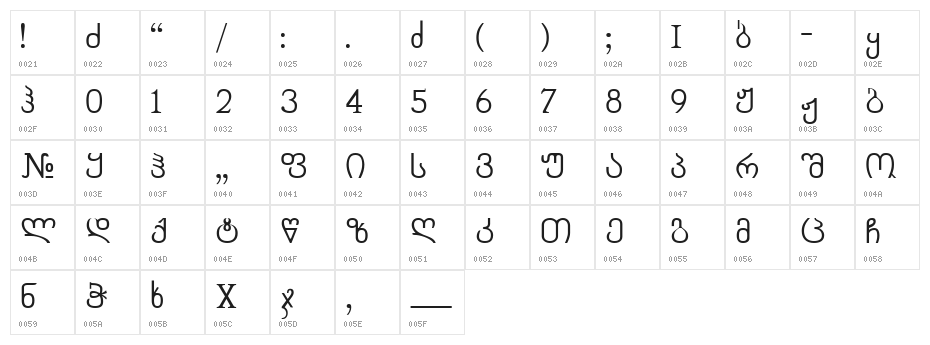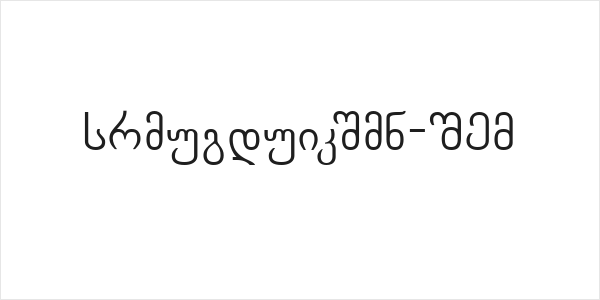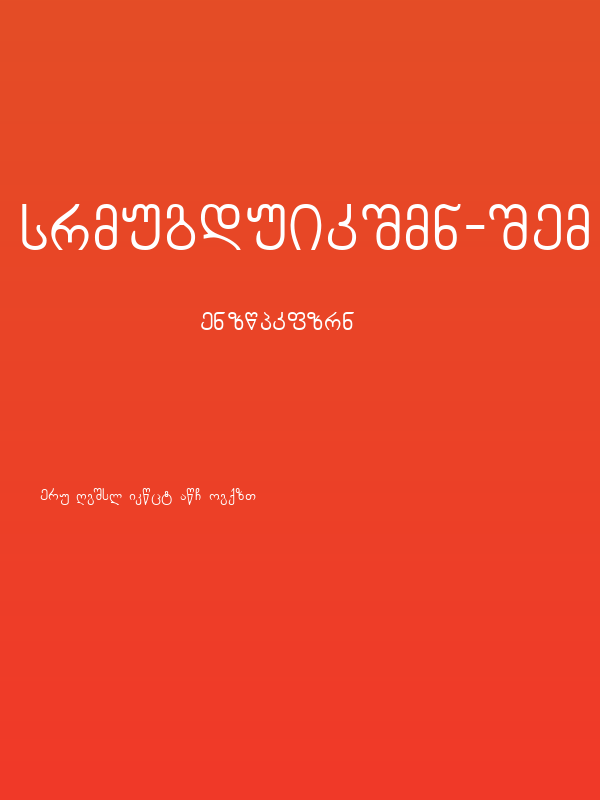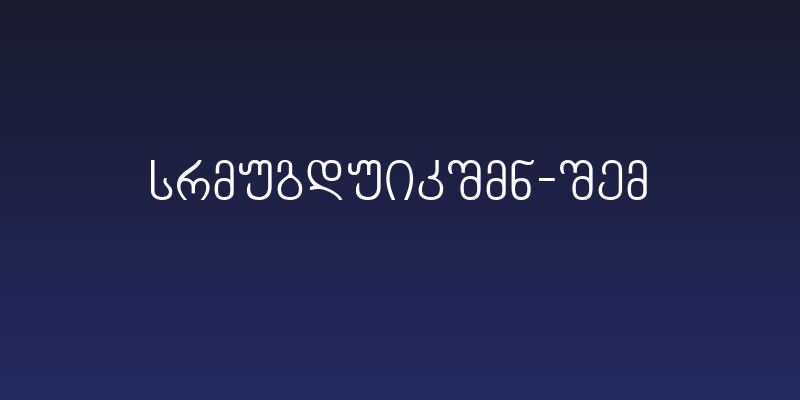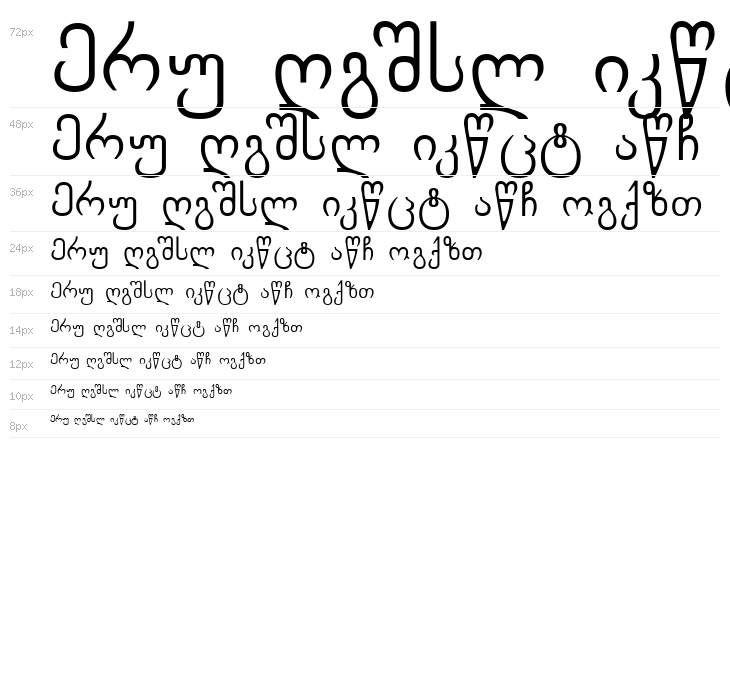
Chveulebrivy-ITV Font
Chveulebrivy-ITV Description
This font features a unique and elegant design with smooth curves and a modern aesthetic. The characters are crafted with a distinct style that combines traditional elements with contemporary flair. The numerals are clear and easy to read, while the special characters add a touch of sophistication. The overall appearance is balanced and harmonious, making it suitable for a variety of design projects. The font's structure is well-defined, with consistent stroke widths and a clean finish that enhances readability.